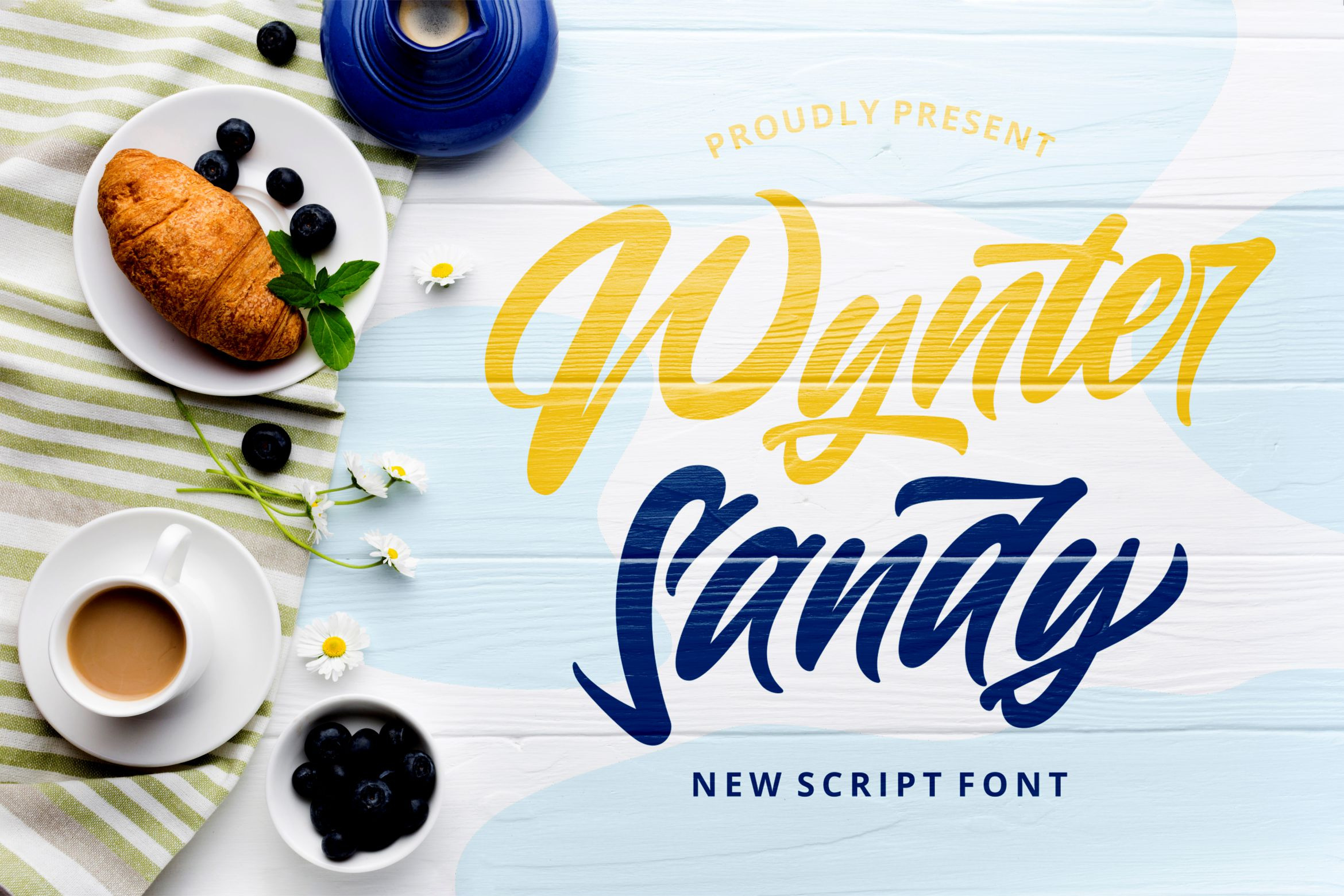
Wynter Sandy - Bold Script Font
Introducing Wynter Sandy - Bold Script Font
Wynter Sandy is a flowing and beautiful handwritten font. It is PUA encoded which means you can access all of the glyphs and swashes with ease! It features a varying baseline, smooth lines, gorgeous glyphs and stunning alternates. Fall in love with its incredibly versatile style and use it to create spectacular designs!